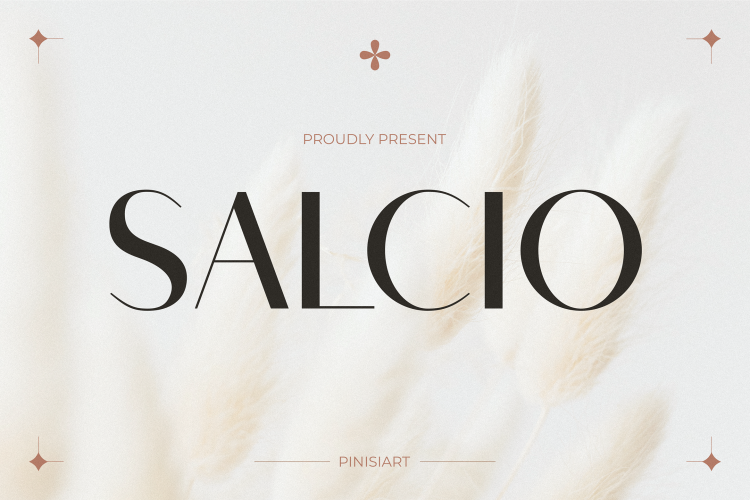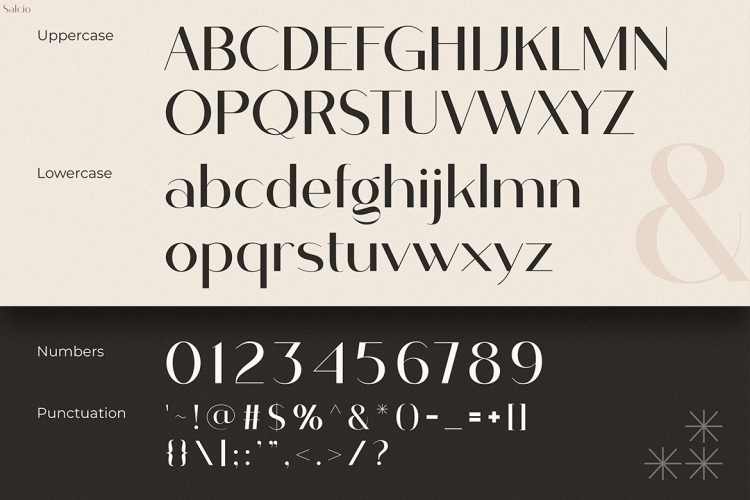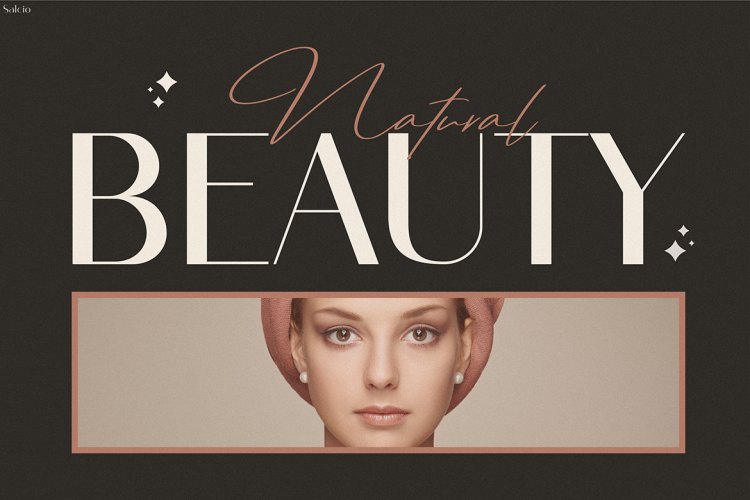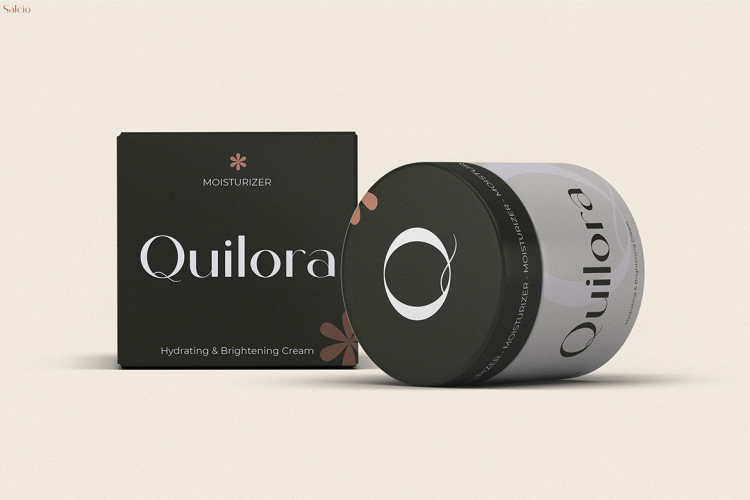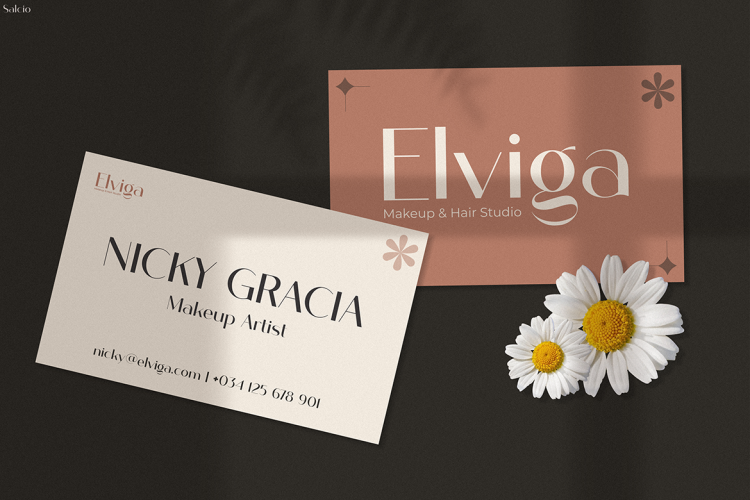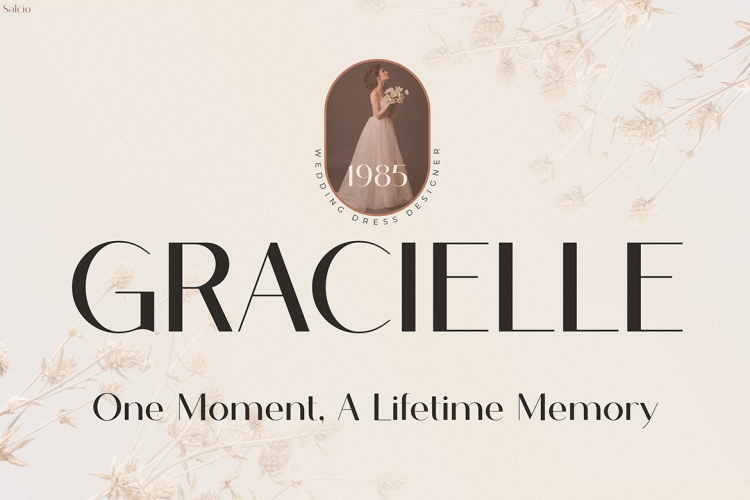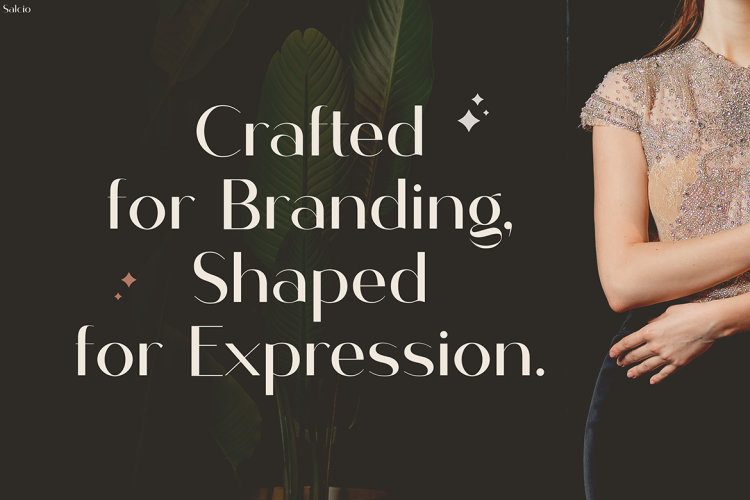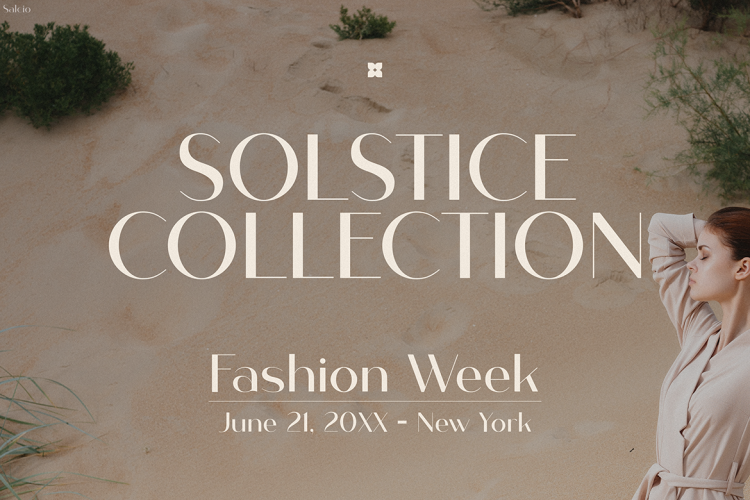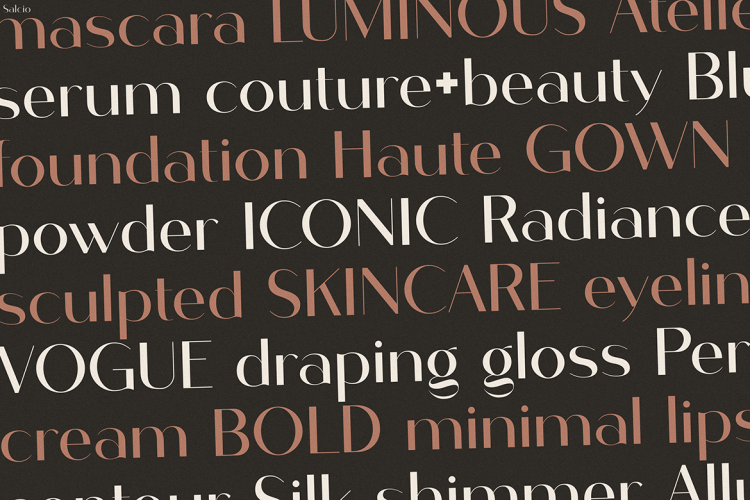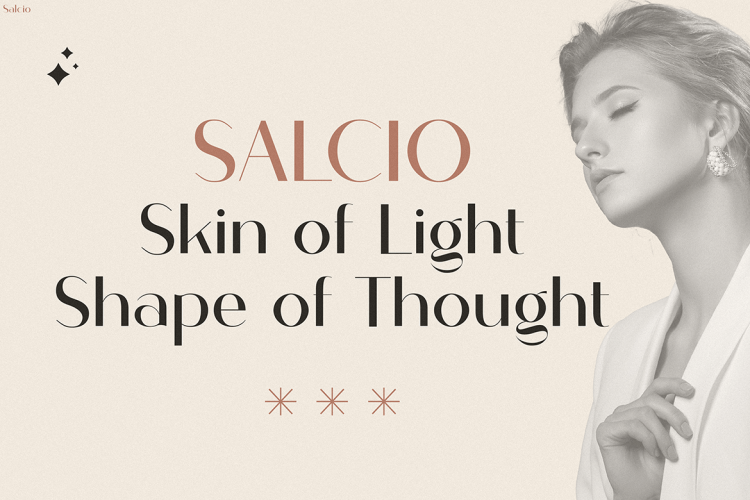
Instagram Font Salcio is a modern luxury typeface with timeless appeal. Its clean lines, elegant curves, and balanced shapes create an unforgettable impression. Moreover, each character feels polished and sophisticated, which makes every word more expressive. Salcio is designed to combine style and function, so your text not only looks beautiful but also remains easy to read.
Unlike ordinary fonts, Salcio brings an artistic quality to your projects. For example, it works perfectly in branding, social media posts, and editorial layouts. Because of its unique contrast and graceful flow, this typeface easily adapts to both bold headlines and refined body text. In addition, it keeps a sense of luxury even in minimalistic designs, which helps elevate your overall aesthetic.
When paired with photography, textures, or soft color palettes, Salcio adds depth and harmony. However, it also shines in modern campaigns that need a striking and confident voice. Therefore, whether you are working on a digital concept or a printed piece, this font ensures consistency and elegance.
Instagram Font Salcio Perfect For
Instagram Font Salcio is ideal for designers, influencers, and creative brands who want to highlight sophistication in their work. Fashion designers, lifestyle bloggers, and beauty labels will find it especially useful because it naturally aligns with visual storytelling. In addition, it works well for luxury packaging, event invitations, and personal branding projects.
Small businesses and marketers can also use Salcio to build a trustworthy and recognizable identity. For example, wedding planners, boutique owners, and creative studios can apply it to logos, stationery, and promotions. Moreover, social media creators can rely on Salcio to make their feeds cohesive, stylish, and memorable. Its versatility ensures that no matter who uses it, the results will feel both elegant and timeless.
With Instagram Font Salcio, your words go beyond simple text and become artful design elements. Its refined details, smooth readability, and flexible usage make it an essential tool for any creative professional. So, take the chance to upgrade your projects with this modern luxury typeface, and let every message you share look as inspiring as it feels.